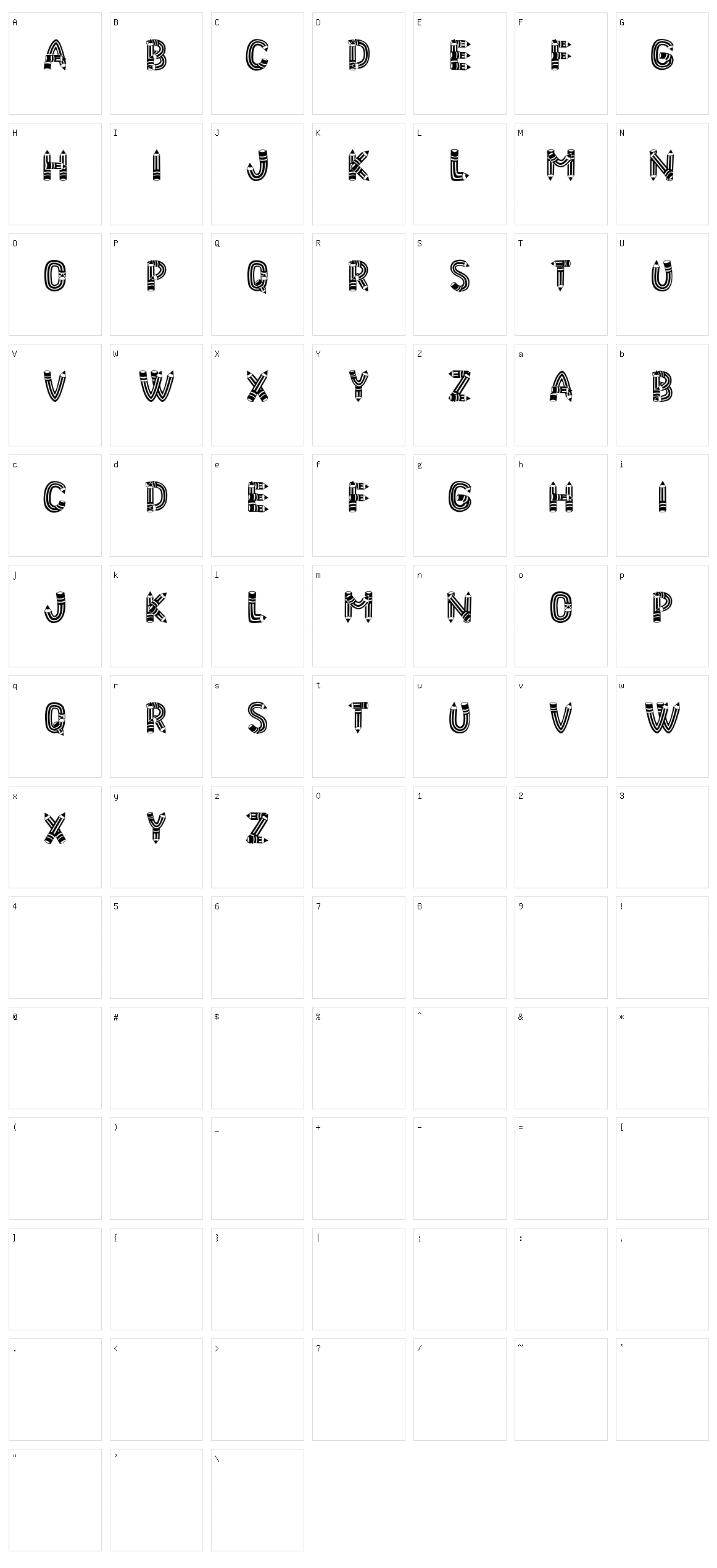
The free font Pencil Letters is carefully designed by Vladimir Nikolic, showcasing a thoughtful balance of creativity and usability and falls under the Decorative font style. When you download the ZIP file, it contains only 49.41 KB of font files, making it lightweight and quick to download. Please review the license details below to understand permitted usage and distribution rights. If license information is not available, we recommend using this font for personal projects only or contacting the author directly for commercial usage permissions.